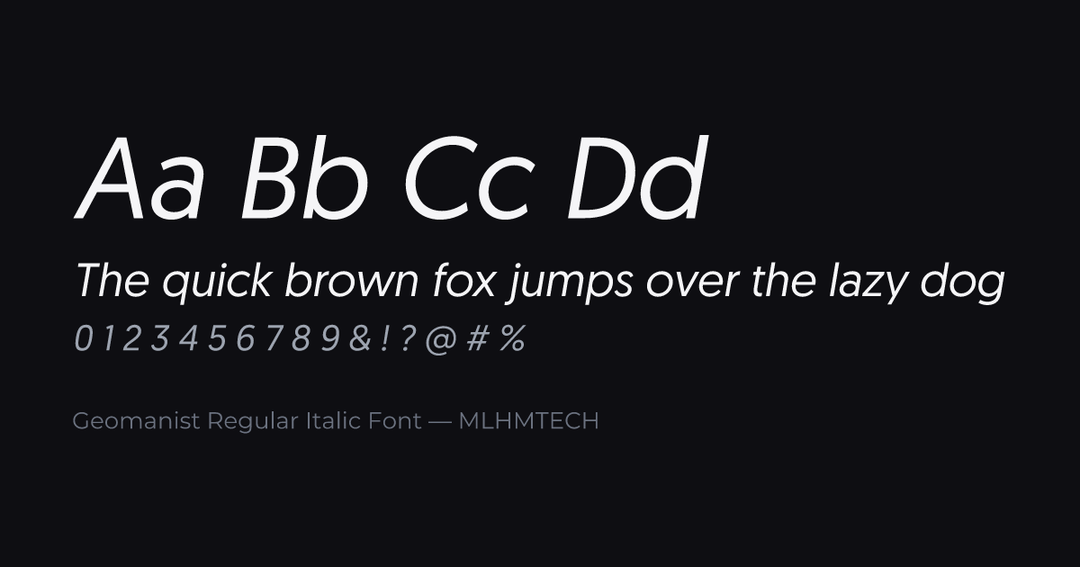
Geomanist Regular Italic Font
Geomanist Regular Italic is a sleek geometric sans-serif font with a subtle slant, ideal for contemporary branding and editorial design.
Geomanist Regular Italic is a refined geometric sans-serif typeface that combines clean lines with a subtle italic angle. Its balanced proportions and modern aesthetic make it a versatile choice for a wide range of creative projects, from logos and headlines to body text and UI design.
This font is part of the Geomanist family, known for its geometric shapes and excellent legibility. The Regular Italic weight adds a touch of elegance and dynamism, perfect for emphasizing key words or creating a sophisticated look in your designs.